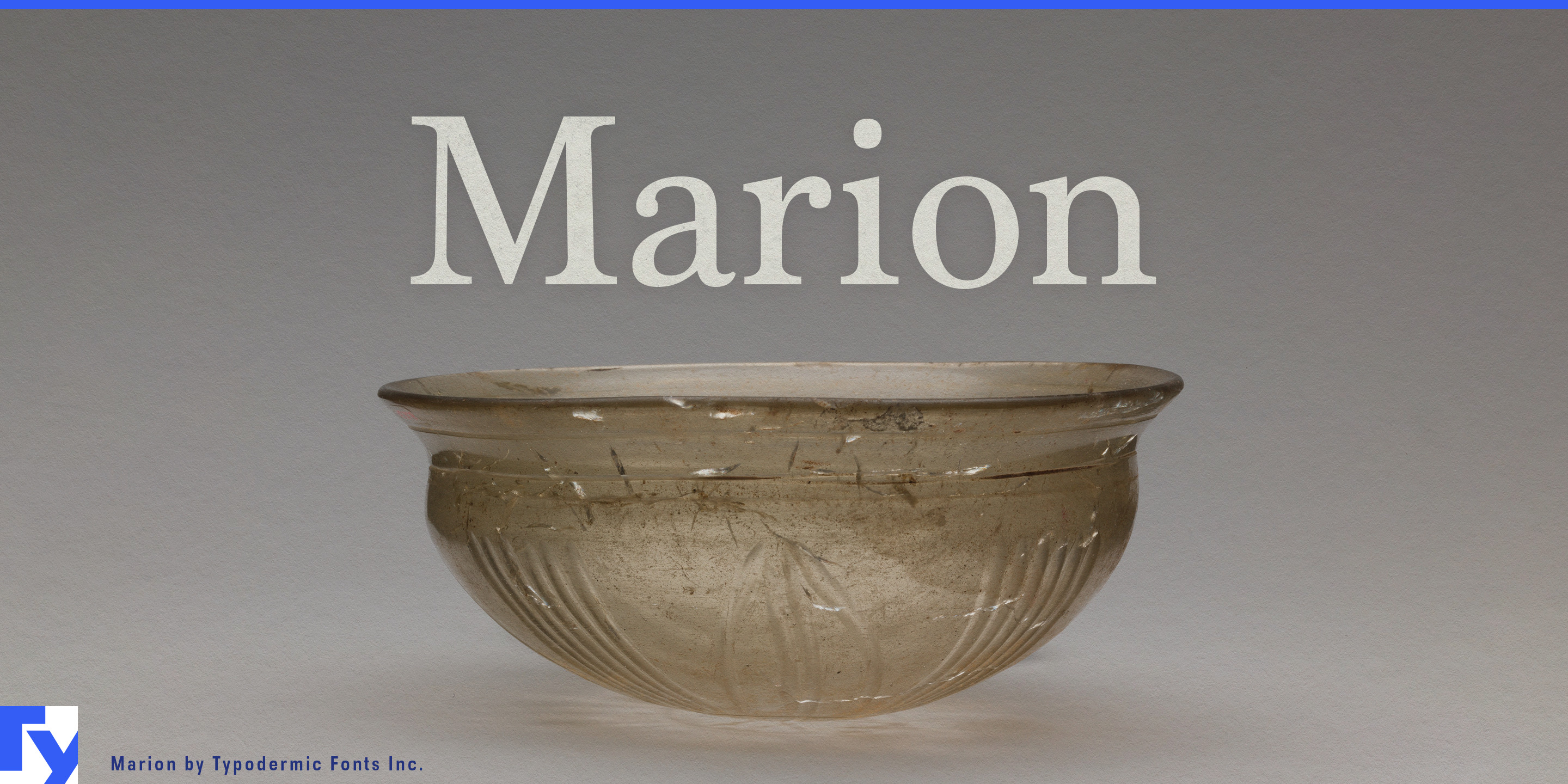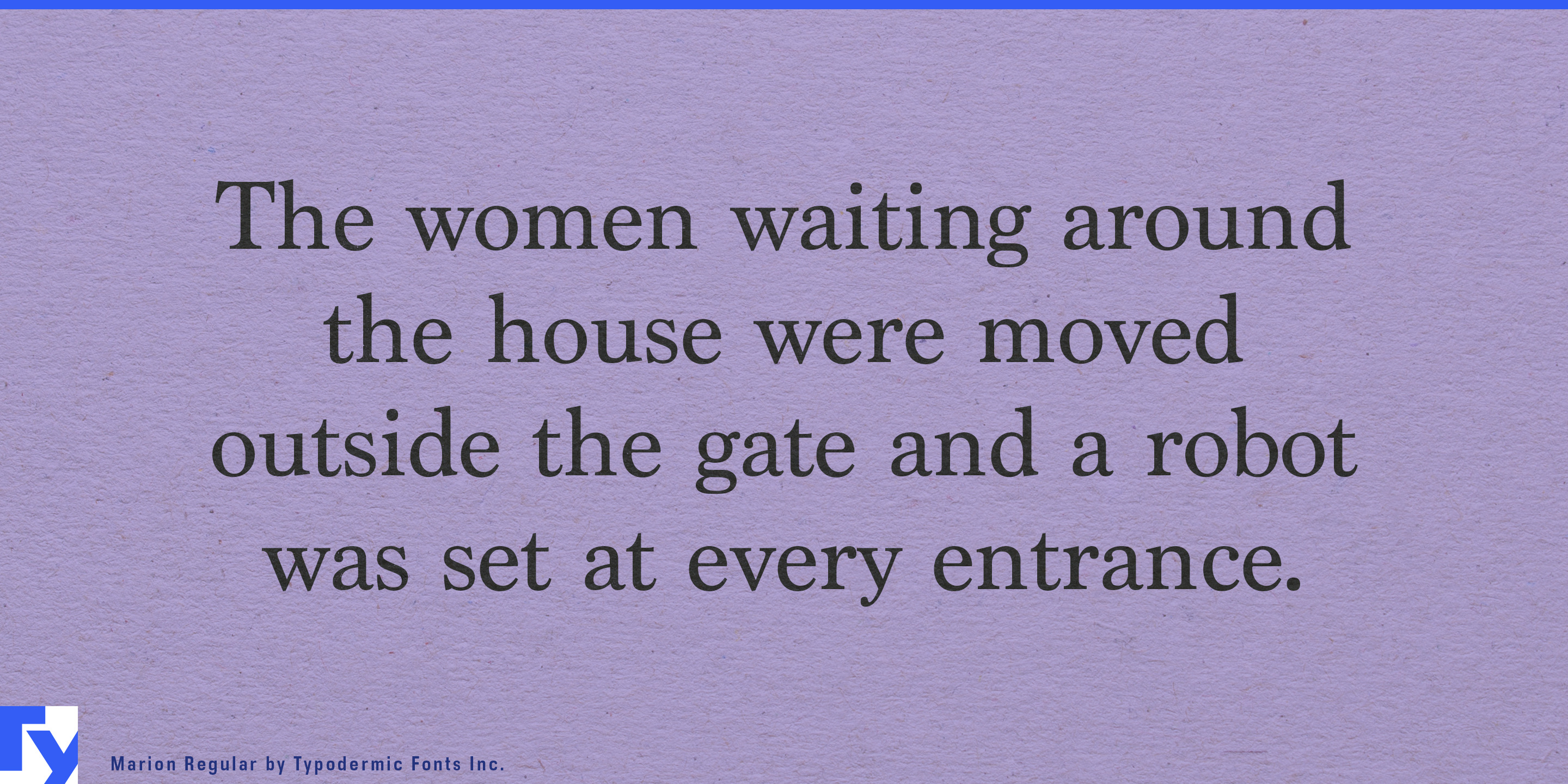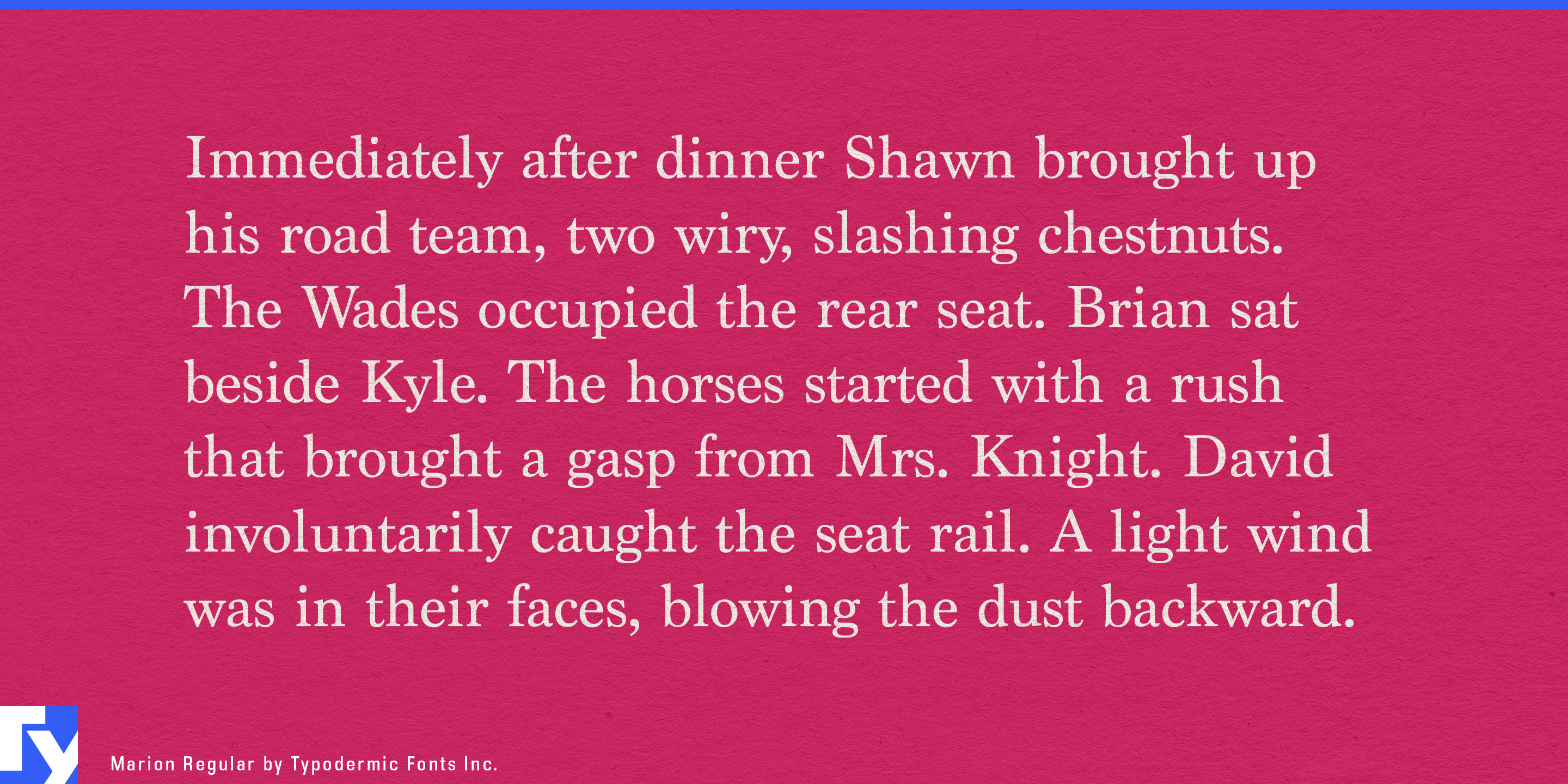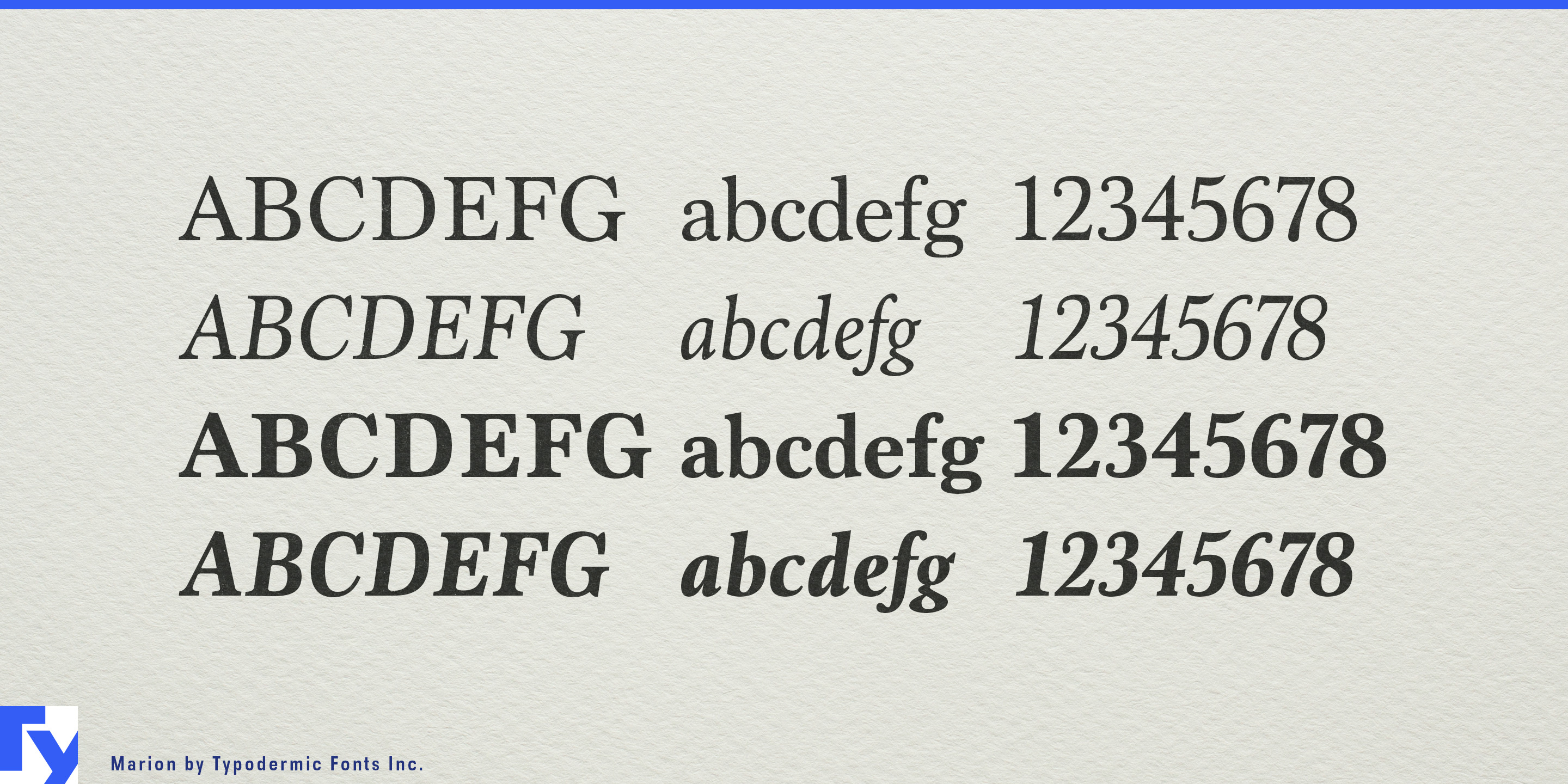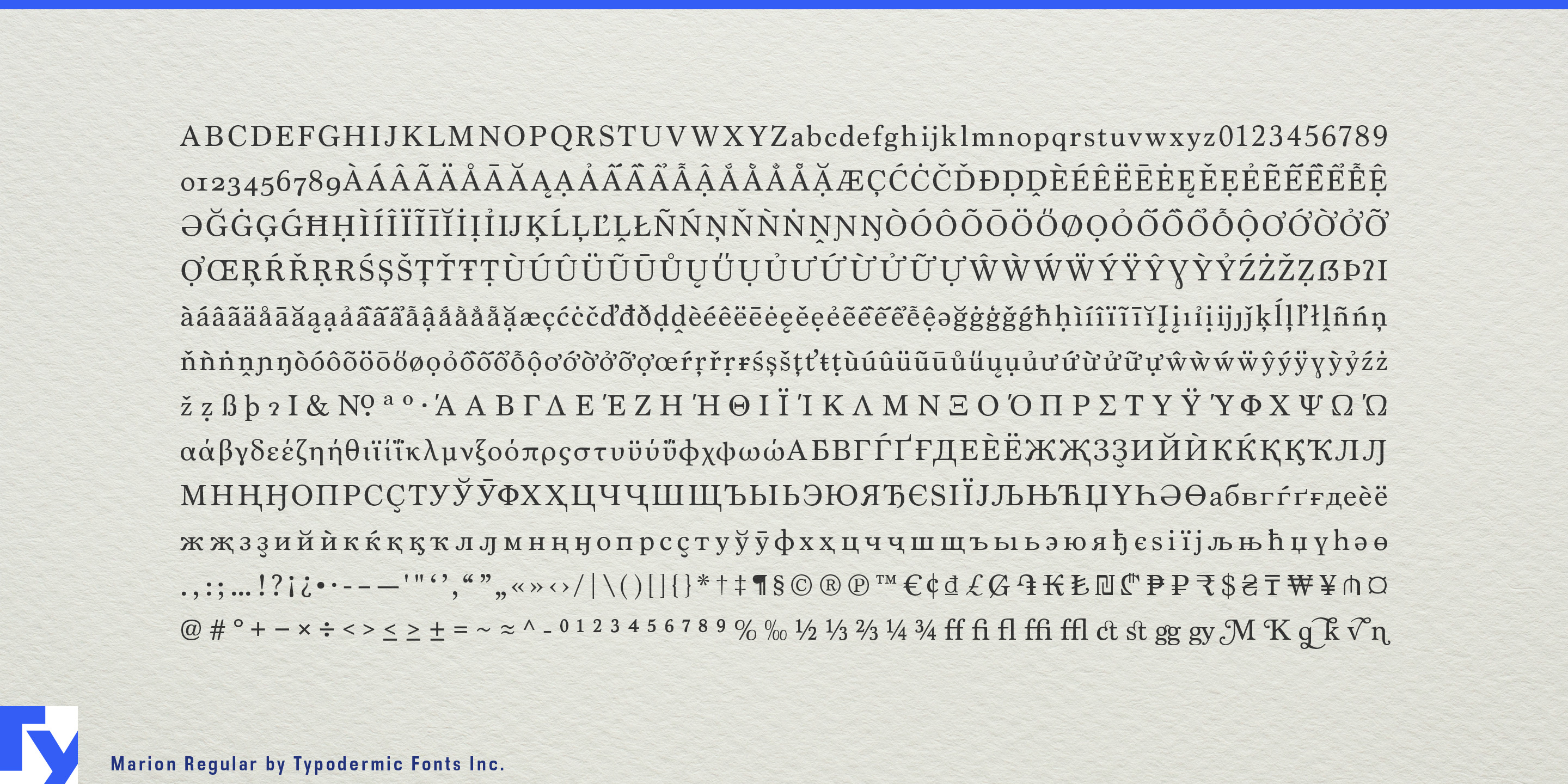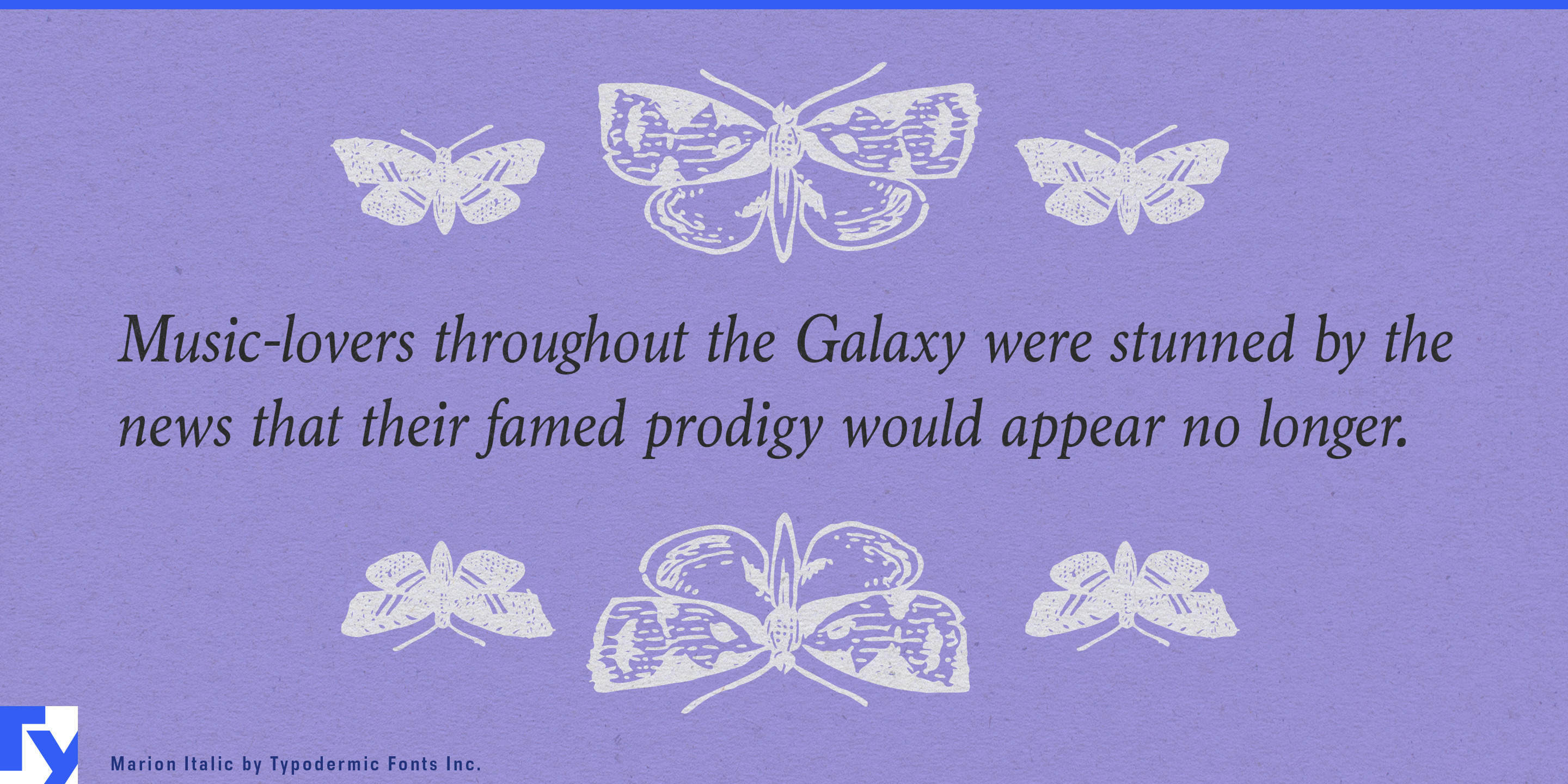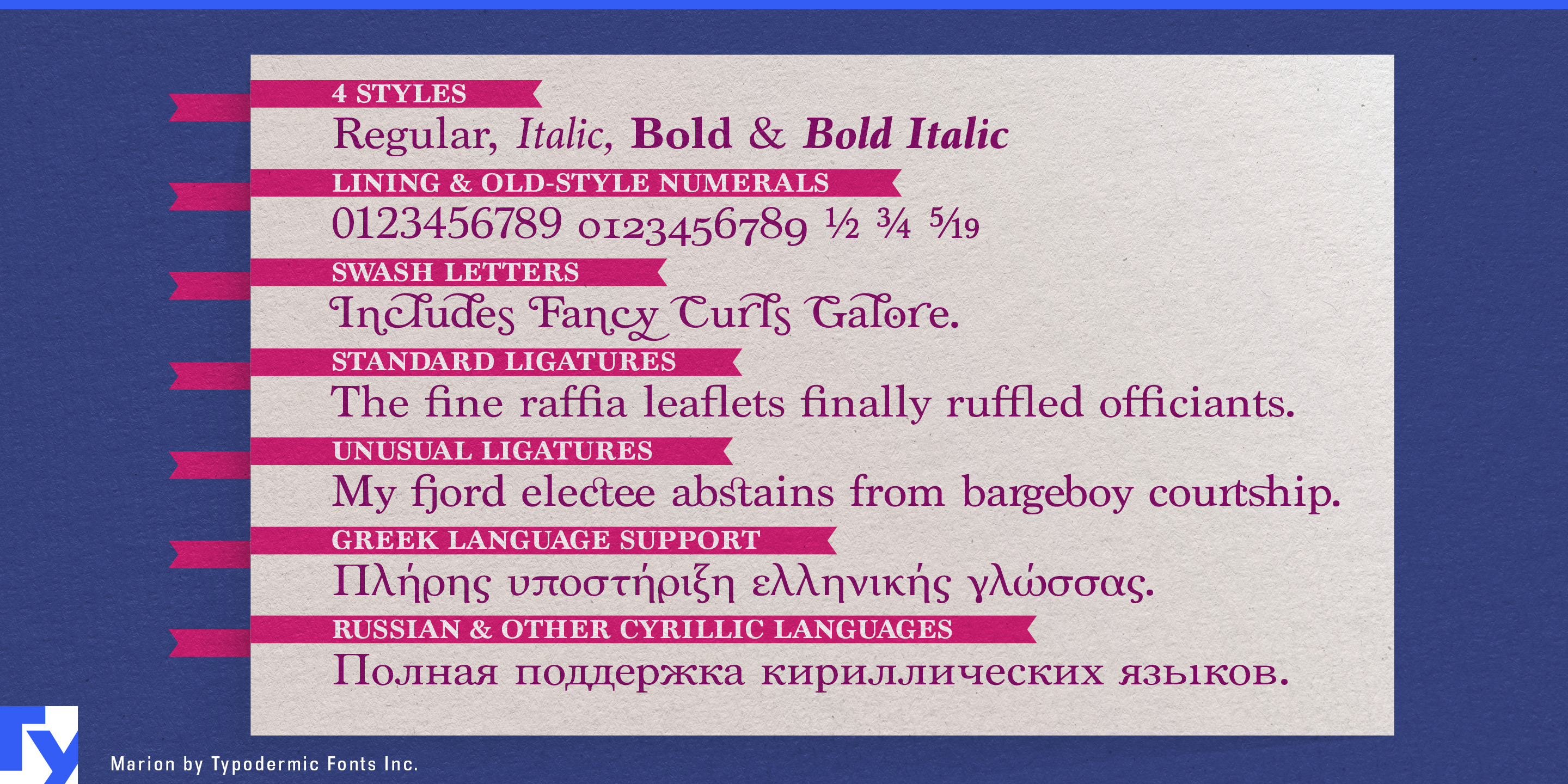
Marion
Marion is built on the familiar architecture of traditional book typography, but it refuses to disappear completely into convention. Its proportions and contrast draw on neoclassical serif models, while heavier details and occasional hammer-claw terminals interrupt the polish just enough to give the page an authored character. It can feel historical without behaving like a strict revival.
That makes Marion particularly useful for museum and exhibition publishing. Art museums, archaeology collections, historic houses, decorative-arts institutions, and university museums can use it for exhibition-book titles, catalogue essays, object descriptions, chapter openings, quotations, captions, and collection introductions. It stays restrained in reading text while revealing more of its idiosyncratic detail at larger sizes.
Archaeology, classics, and ancient-history publishing provide an especially natural setting. Classical-studies books, archaeological reports, epigraphy publications, digital collections, and cultural-history projects can combine Latin and Greek material within the same typographic system. Cyrillic support extends the family into publications and exhibitions concerned with Eastern European history, literature, art, and collections.
University presses and serious nonfiction publishers can use Marion across intellectual history, architectural history, biography, philosophy, cultural criticism, history of science, music history, and art criticism. These subjects often benefit from traditional book cues, yet an immaculate historical revival can make the design feel predetermined by the category. Marion retains the expected editorial gravity while giving titles, section openings, pull quotes, and promotional material a more distinctive edge.
Digital archives and humanities platforms extend the same idea into contemporary publishing. Libraries, museums, universities, foundations, and cultural institutes can use Marion for introductions, essays, timelines, transcriptions, collection notes, and contextual material around digitized letters, manuscripts, newspapers, photographs, and oral histories while a neutral sans handles navigation, search, metadata, and controls.
Marion is most useful when a serious historical or cultural subject calls for traditional serif typography but the designer wants something less predetermined than a canonical revival. Its familiar neoclassical structure provides the authority; its blunt, slightly eccentric details keep the result from disappearing into convention.